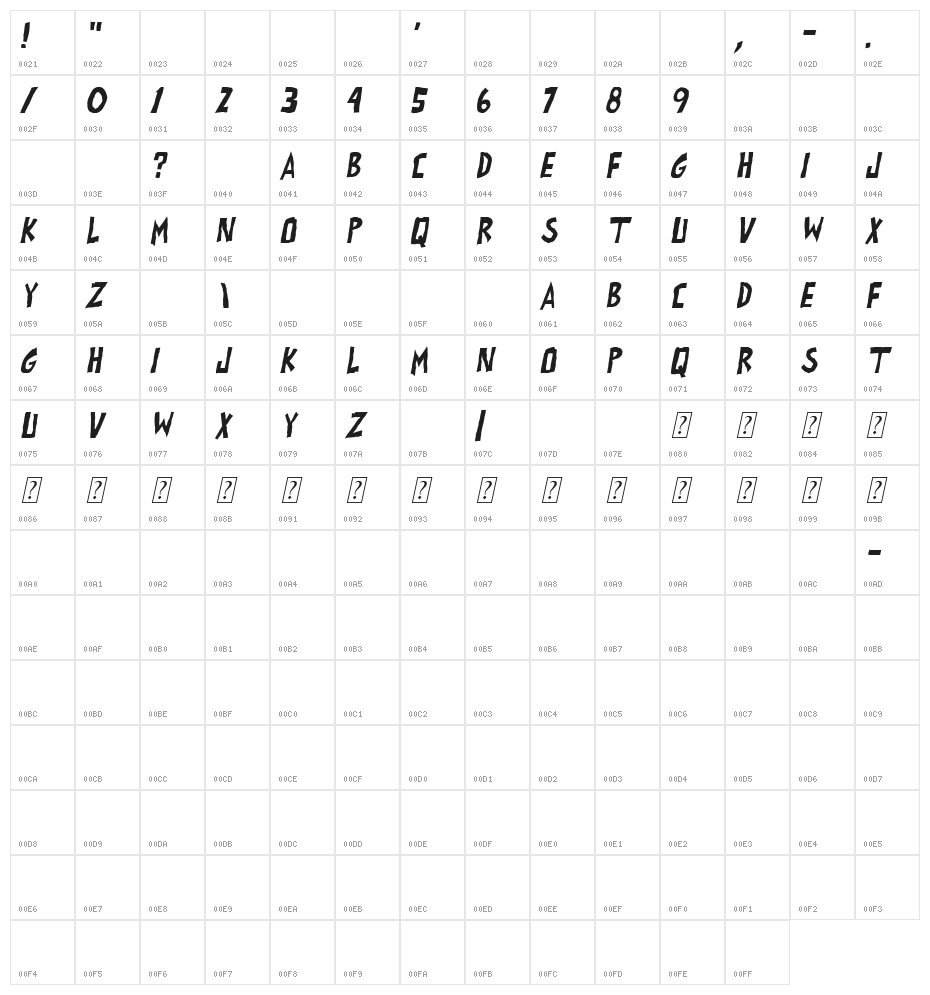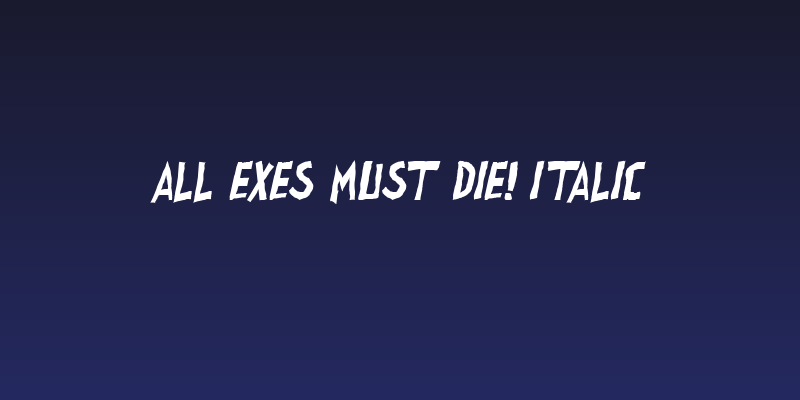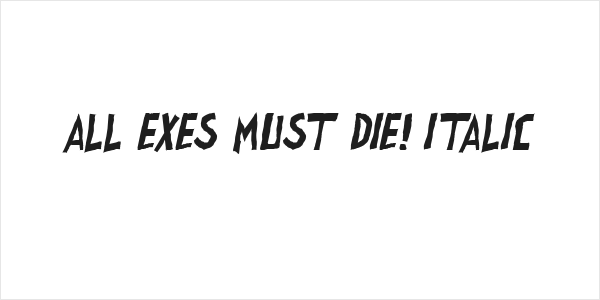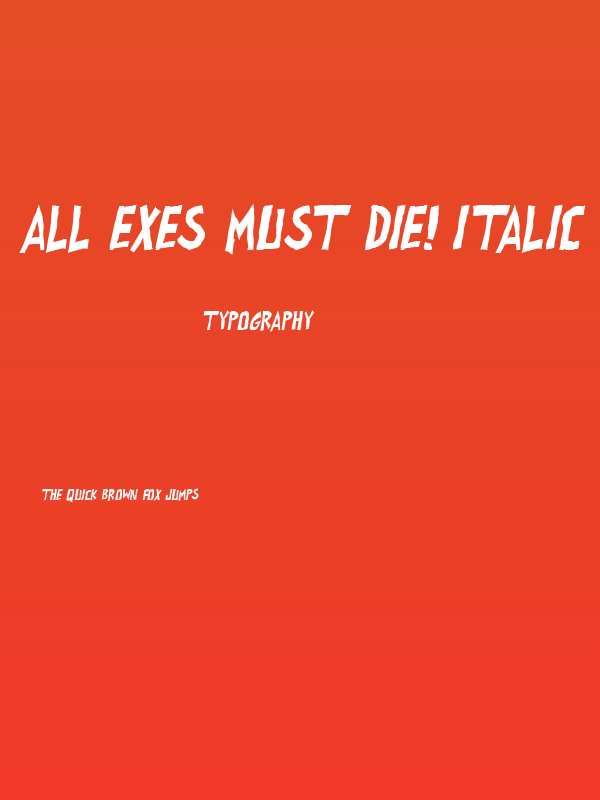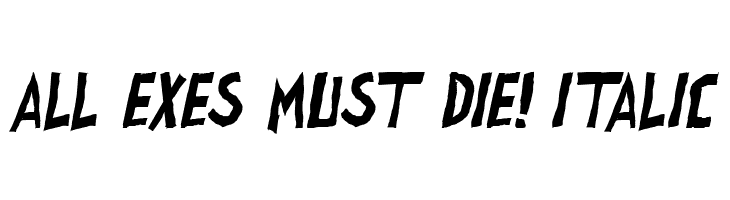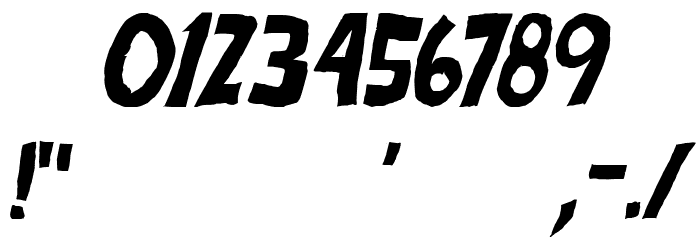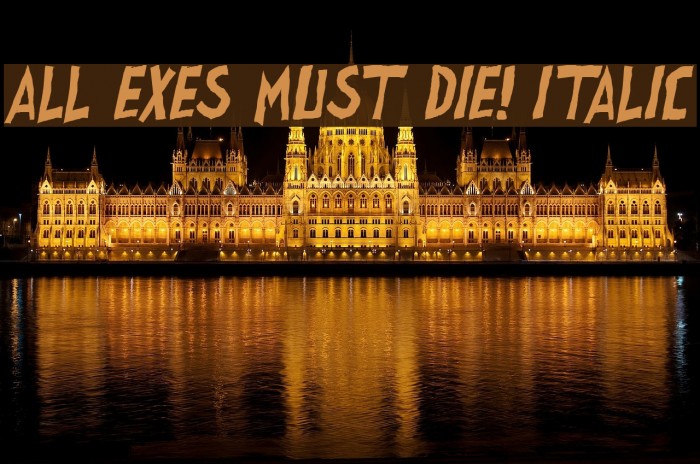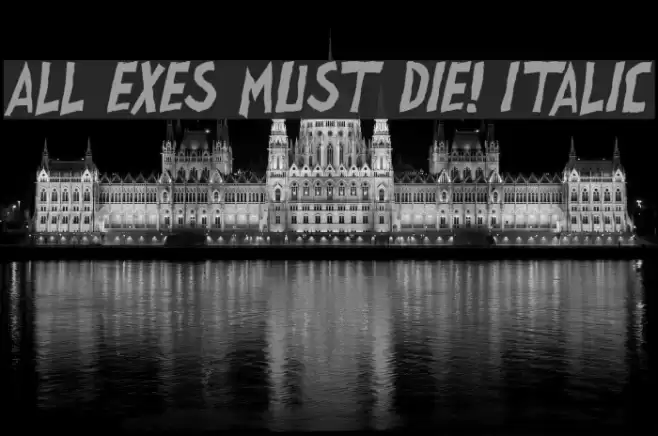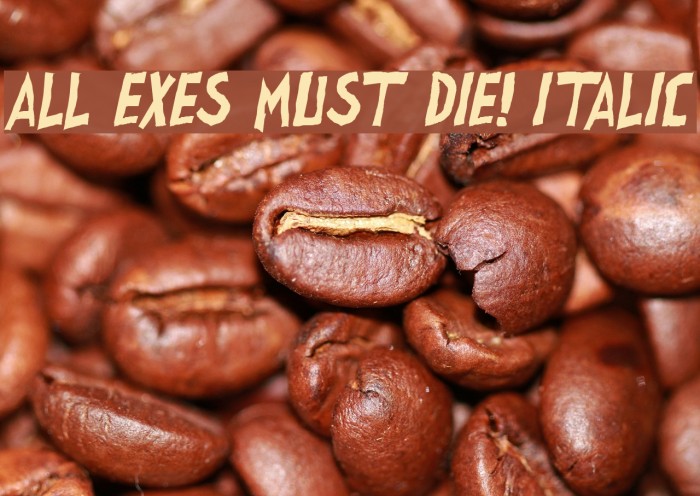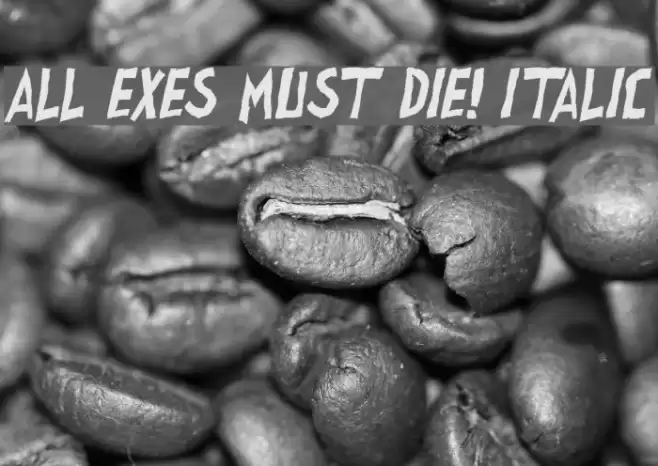
all exes must die! Italic Font
all exes must die! Italic Description
This font features a bold and dynamic style with sharp, angular edges and a slightly italicized slant, giving it a sense of movement and energy. The uppercase and lowercase letters are consistent in their aggressive and edgy appearance, making it ideal for attention-grabbing designs. The numbers and special characters maintain the same bold and striking aesthetic, ensuring uniformity across all text elements. The font's unique style is reminiscent of graffiti or street art, with a modern twist that makes it suitable for contemporary design projects.
| Overall Style | Modern, Edgy |
| Proposed Projects | Ideal for use in posters, album covers, video game graphics, and branding that requires a bold, rebellious look. |